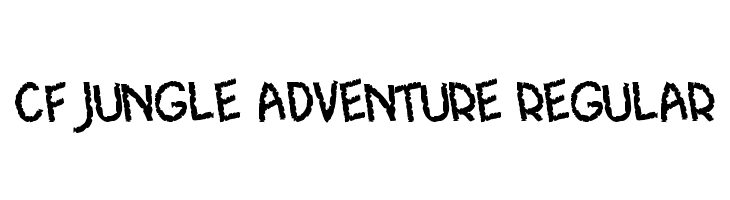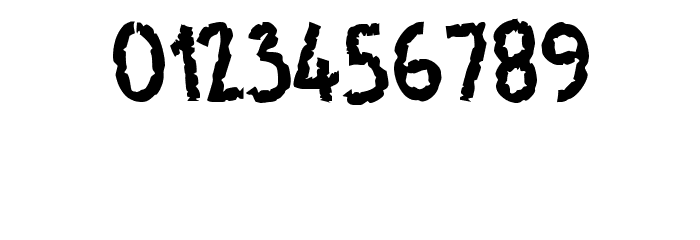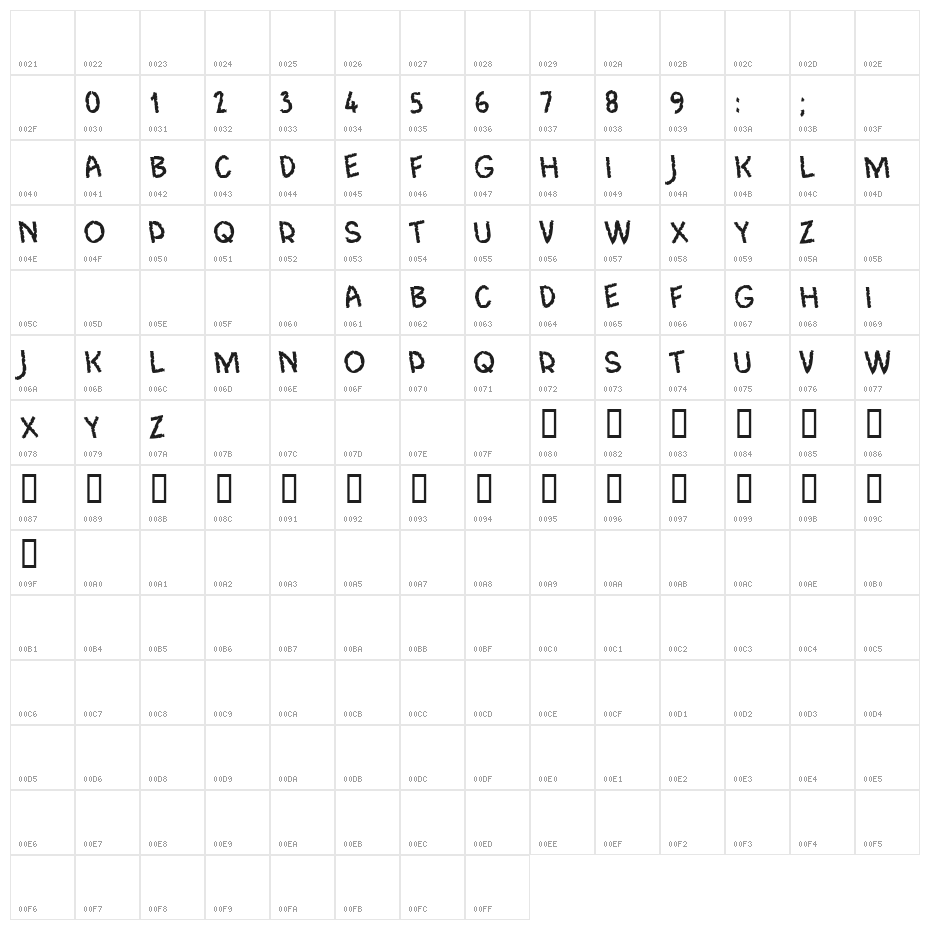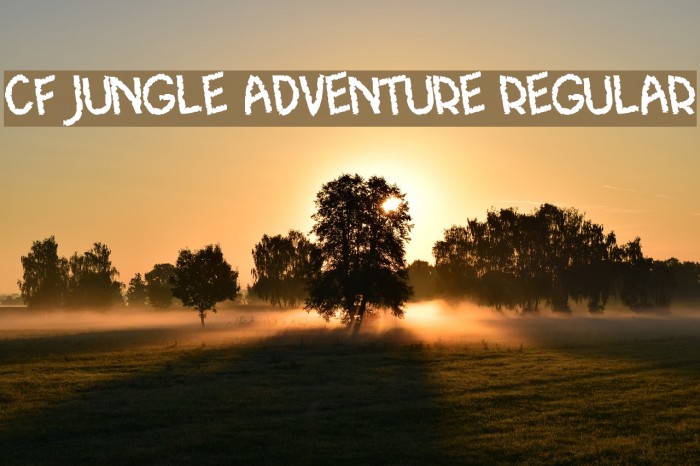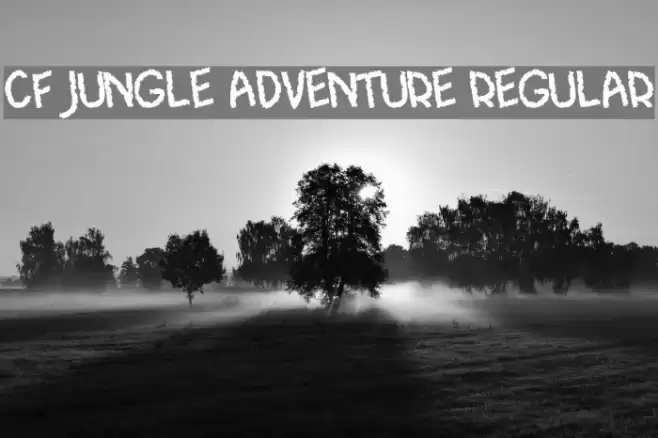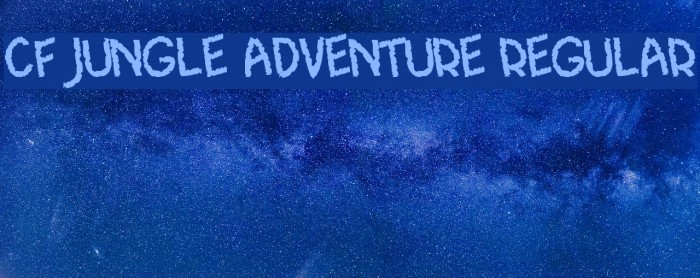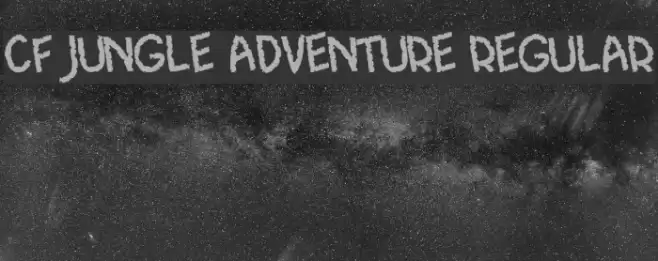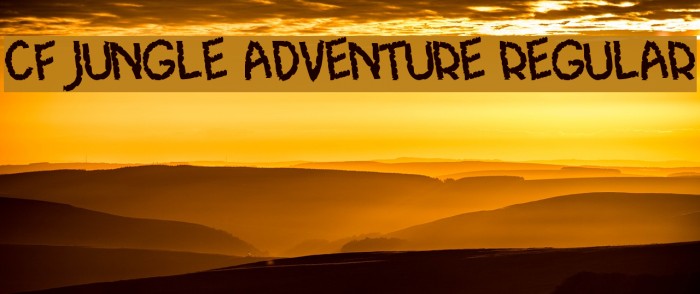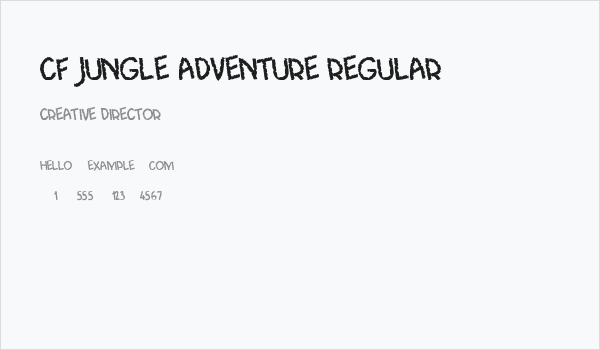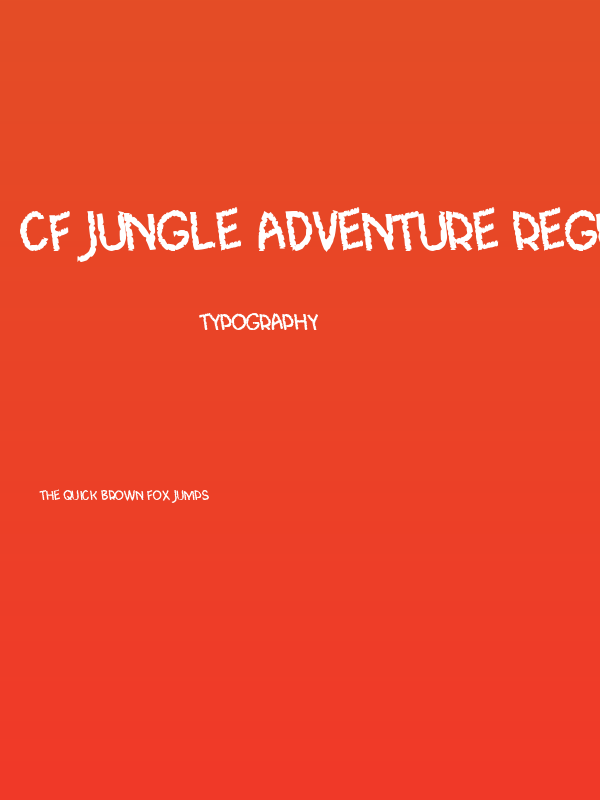
CF Jungle Adventure Regular Font
CF Jungle Adventure Regular Description
This font features a rugged, adventurous style reminiscent of jungle foliage and natural textures. The letters are bold and irregular, with a hand-drawn appearance that suggests movement and vitality. The edges are rough and uneven, giving a sense of wildness and unpredictability. This font captures the essence of exploration and the untamed wilderness, making it ideal for projects that require a sense of adventure and excitement. The numbers and uppercase letters maintain the same rugged aesthetic, ensuring consistency across all characters.
| Proposed Projects | Perfect for adventure-themed posters, outdoor event flyers, children's book covers, and branding for nature-related products. |